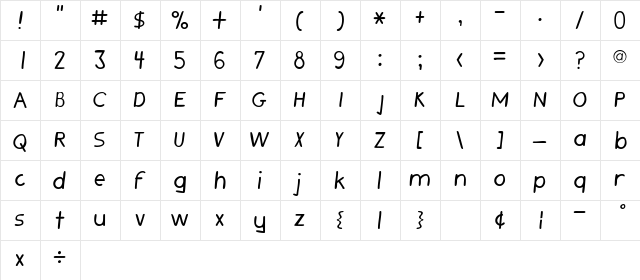
AudetteSSK Regular
Design Context for AudetteSSK Typeface
AudetteSSK is a composed and adaptable typeface that performs quietly and consistently across a wide range of design contexts.